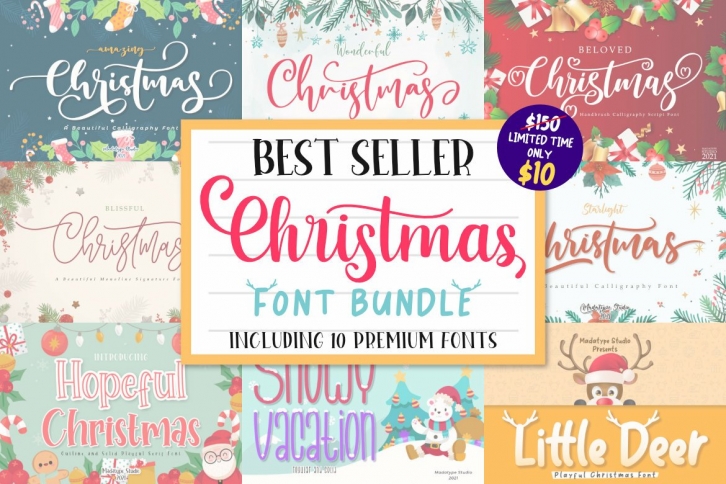
Best Seller Script and Display Christmas Bundle is a great font that was designed by Madatype Studio. Imagine the amount of combinations you can create using this font! The archive is 5.70 MB and it was released on November 2, 2021. Best Seller Script and Display Christmas Bundle looks beautiful on wedding invitations, greeting cards, logos, posters, labels, t-shirt designs, logos, business cards and is perfect for use in ink or watercolor works, fashion, magazines, packaging and food menus, children's books and more!